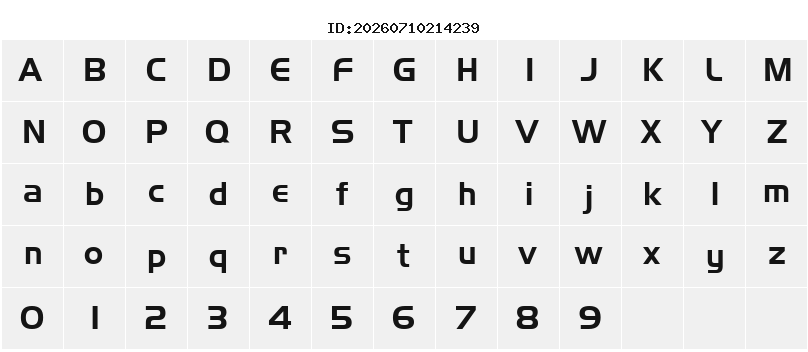
Hanzel Preview
• Font Name: Hanzel
• Font ID: FontMonger:Hanzel Normal
• Full Font Name: Hanzel Normal
• Version: 1.0 Wed Jul 28 16:00:20 1993
• PostScript Name: HanzelNormal
About Hanzel.ttf
Hanzel.ttf is a modern, elegant sans-serif font designed for ultimate readability and visual harmony. Perfect for branding, headlines, web design, and print materials.